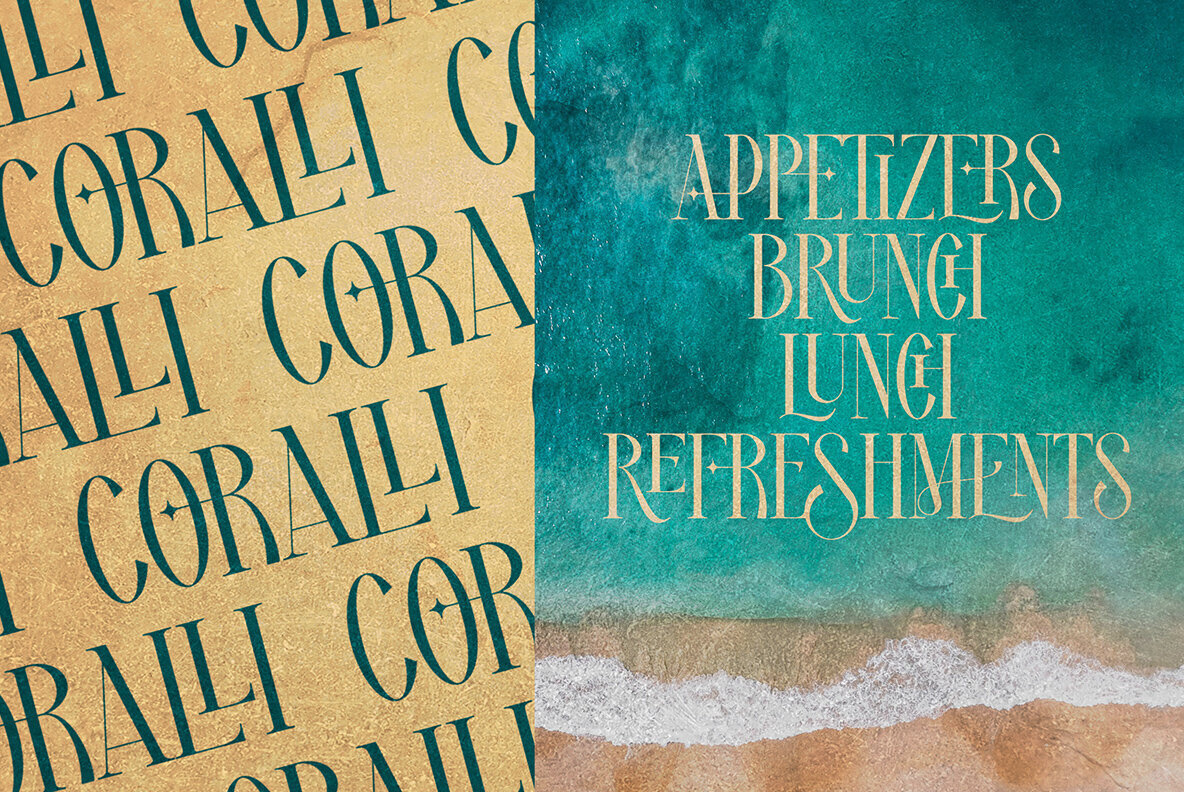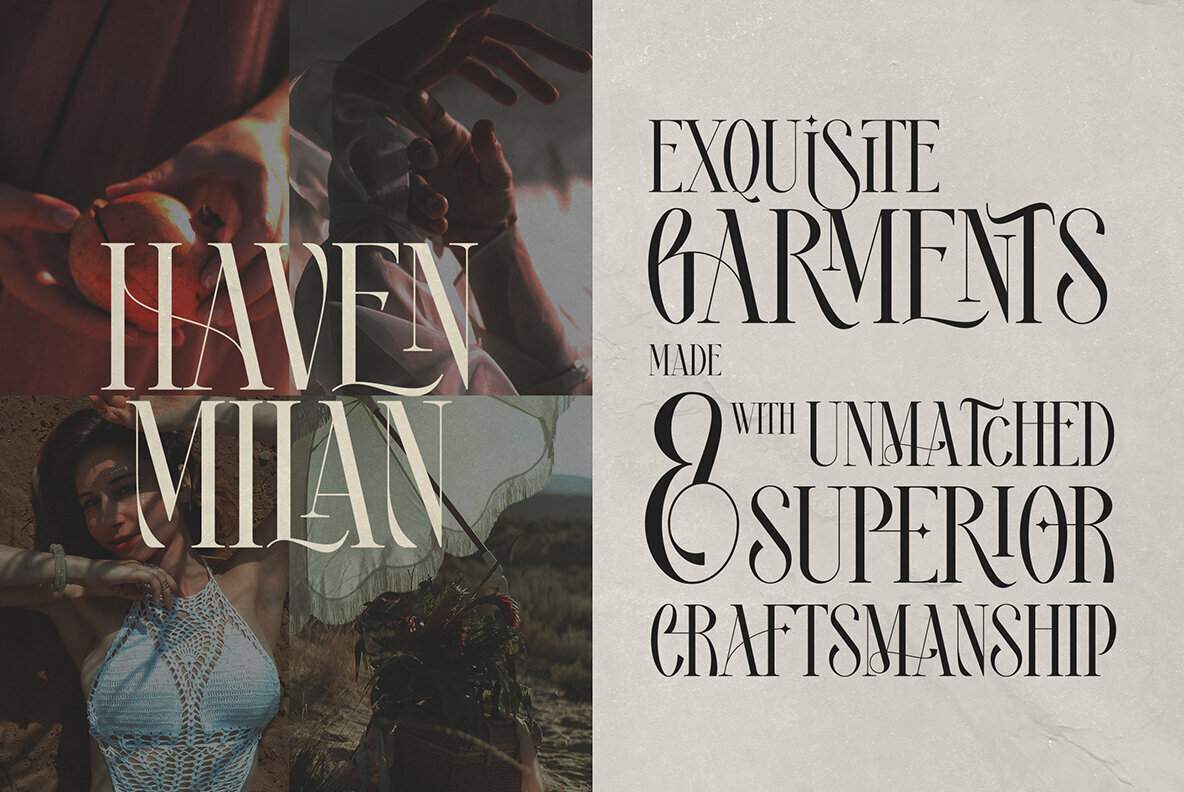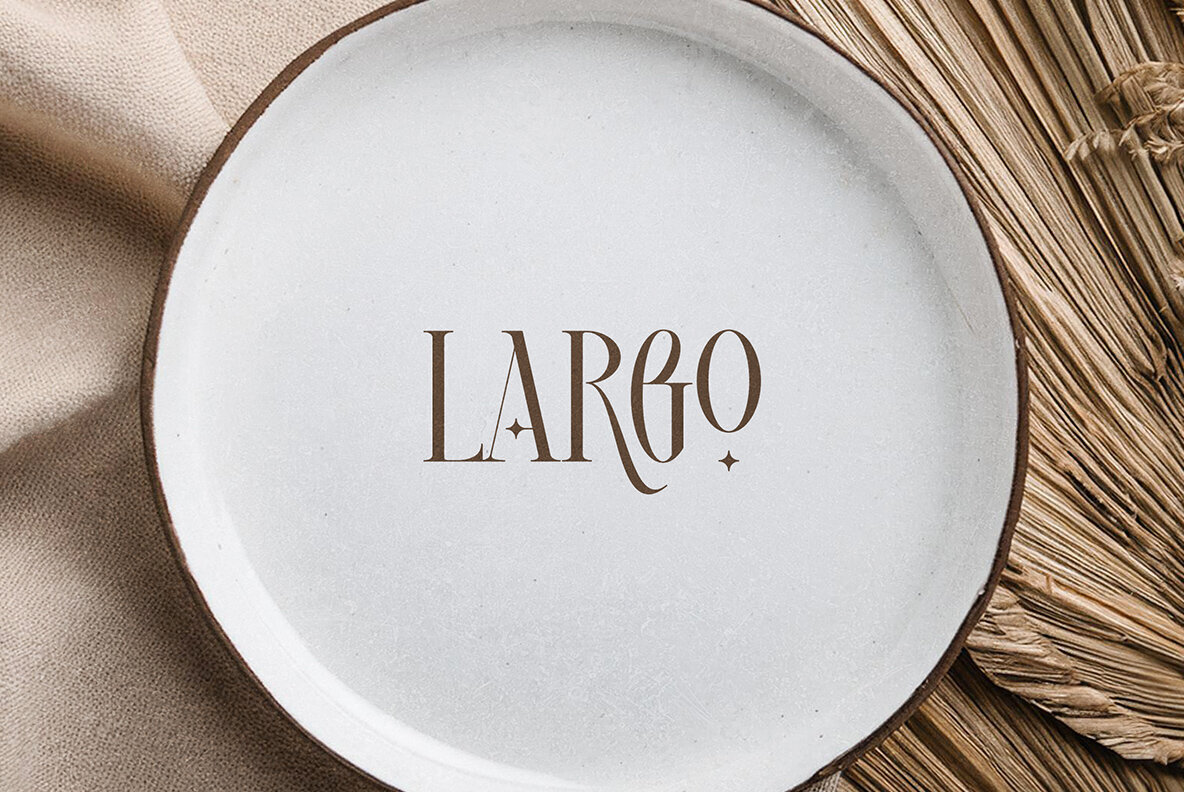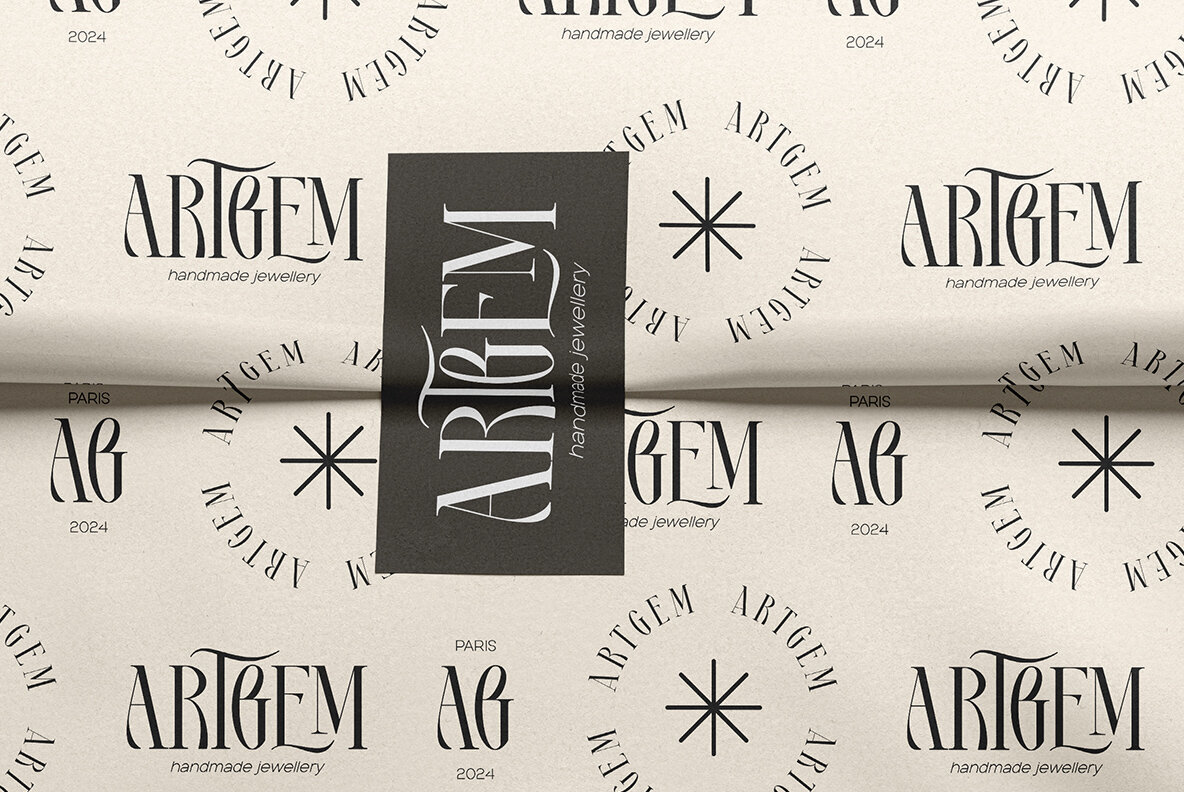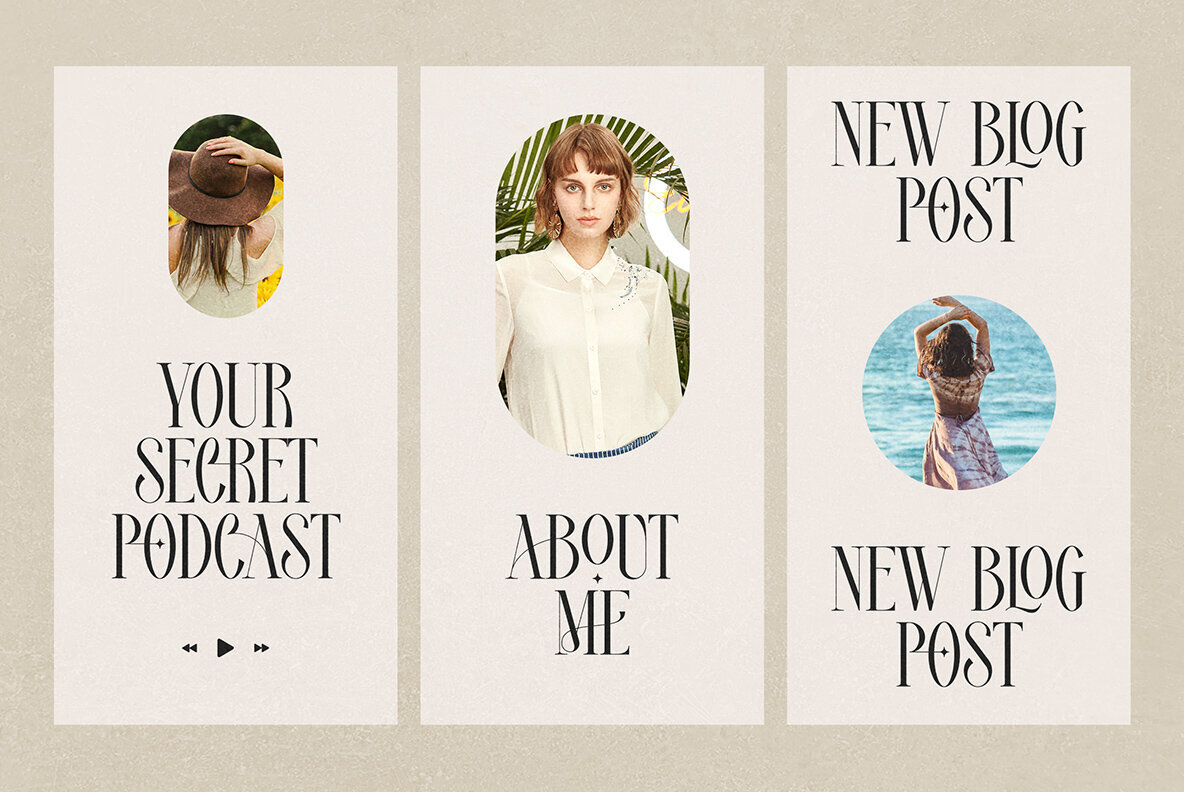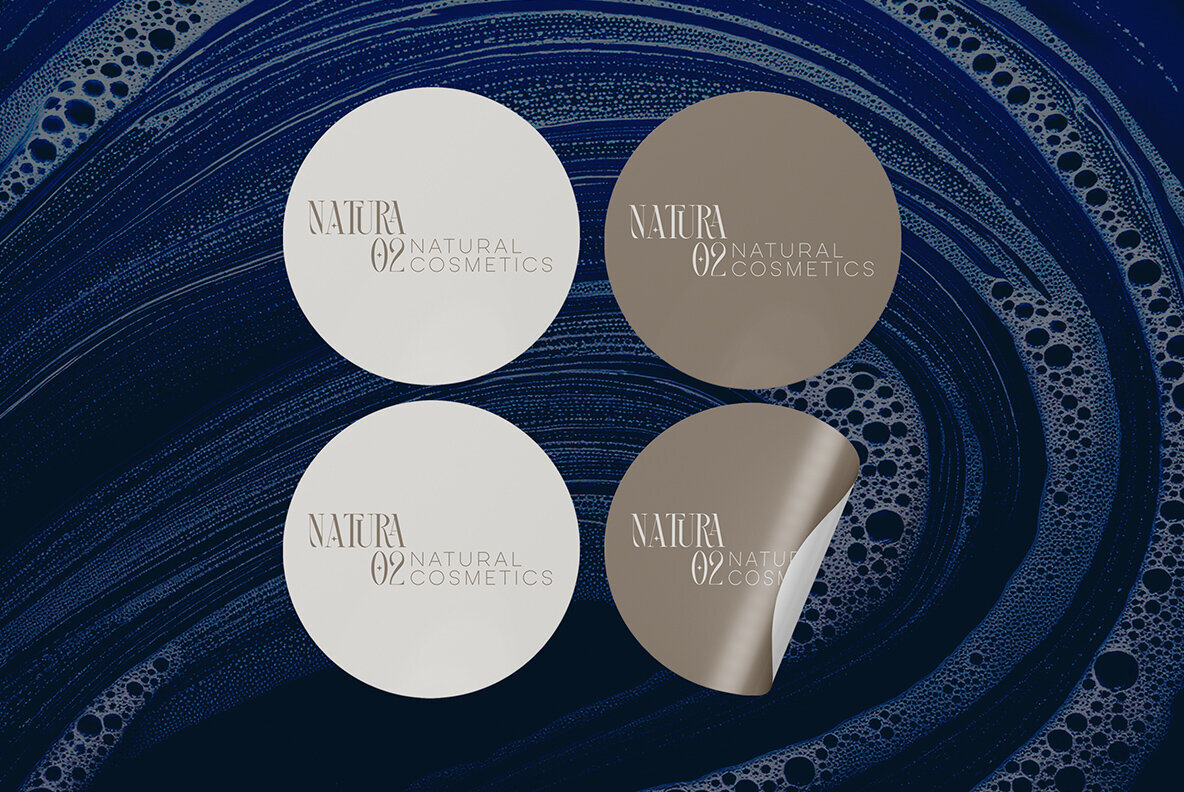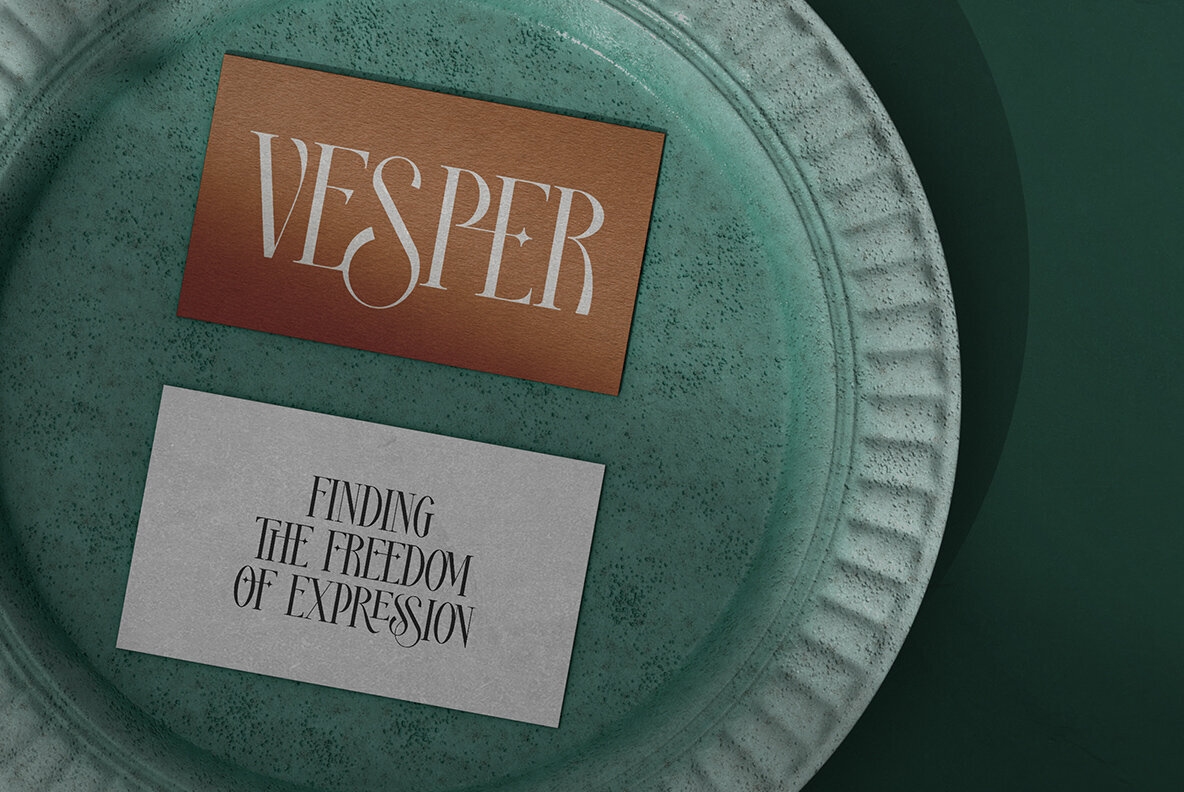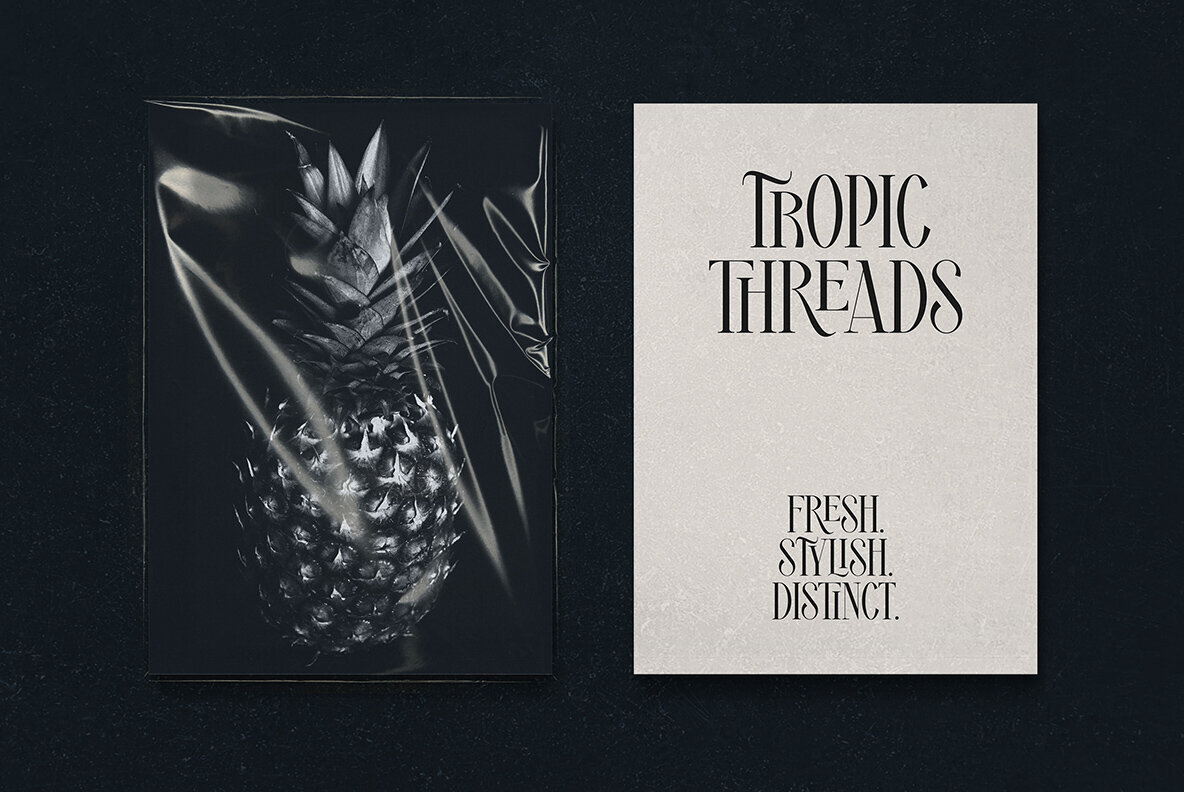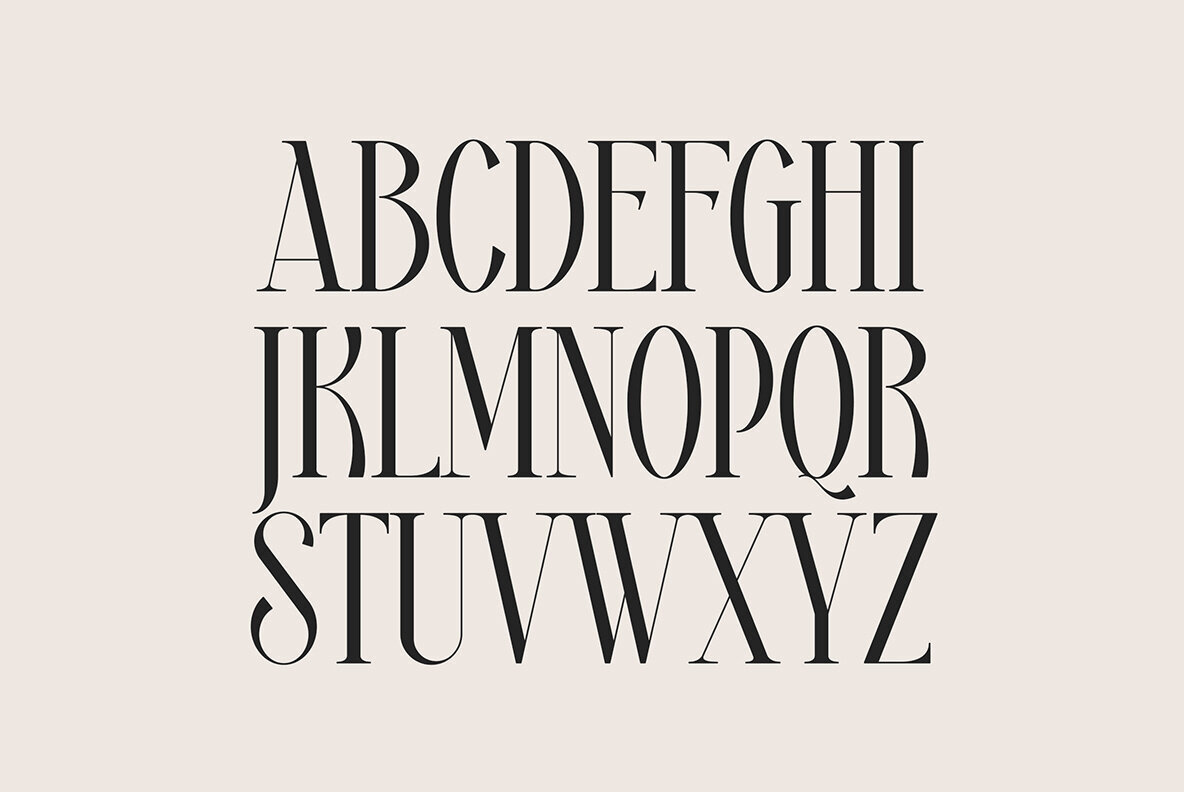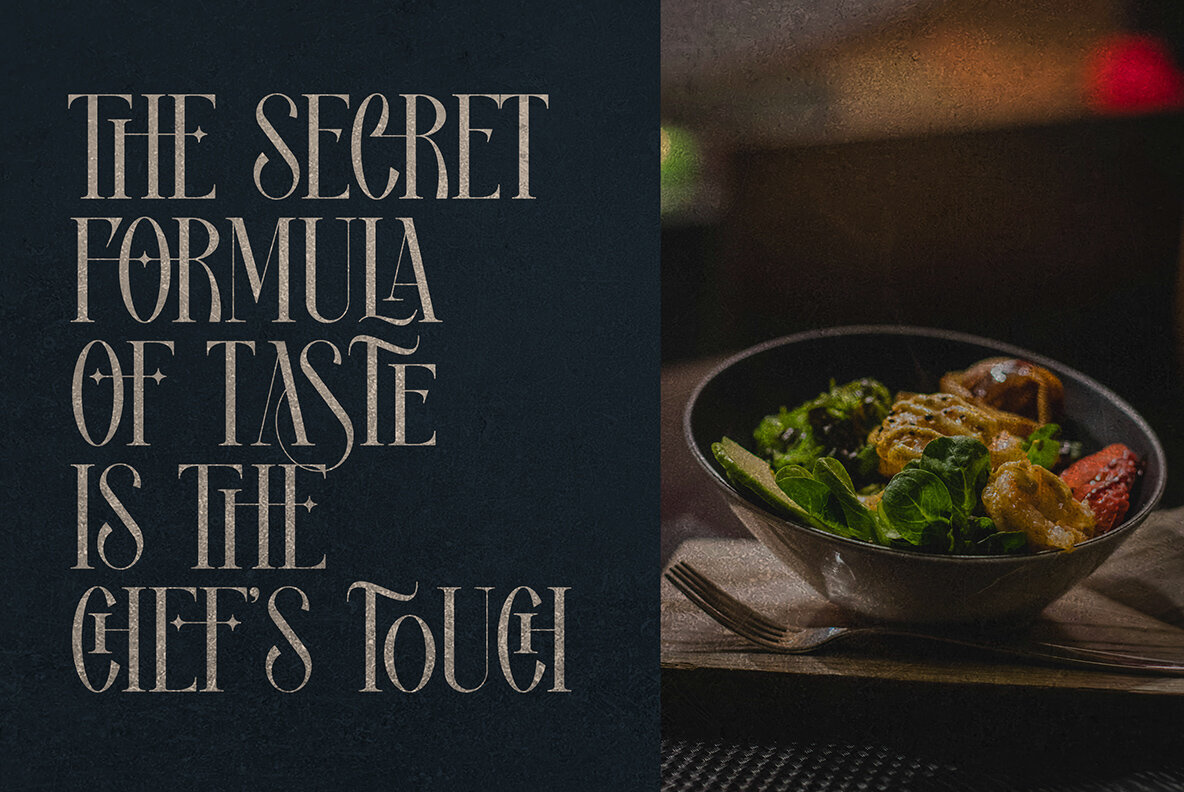
Royal Type Font
Discover Royal Type, a sophisticated and elegant long serif font perfect for adding a touch of class to your projects. With support for 87 languages and over 150 ligature glyphs, it's ideal for creating stunning logos, captivating headlines, and exquisite wedding invitations. Enhance your designs with its alternate glyphs, providing unparalleled versatility and elegance to make a standout statement.
Royal Type’s extensive language support includes Afrikaans, Albanian, Czech, Danish, Dutch, English, French, German, Italian, Spanish, Swedish, and many more. This font accommodates a wide range of linguistic needs, ensuring your message is communicated beautifully across different languages. Please note that mockups and backgrounds used are not included.